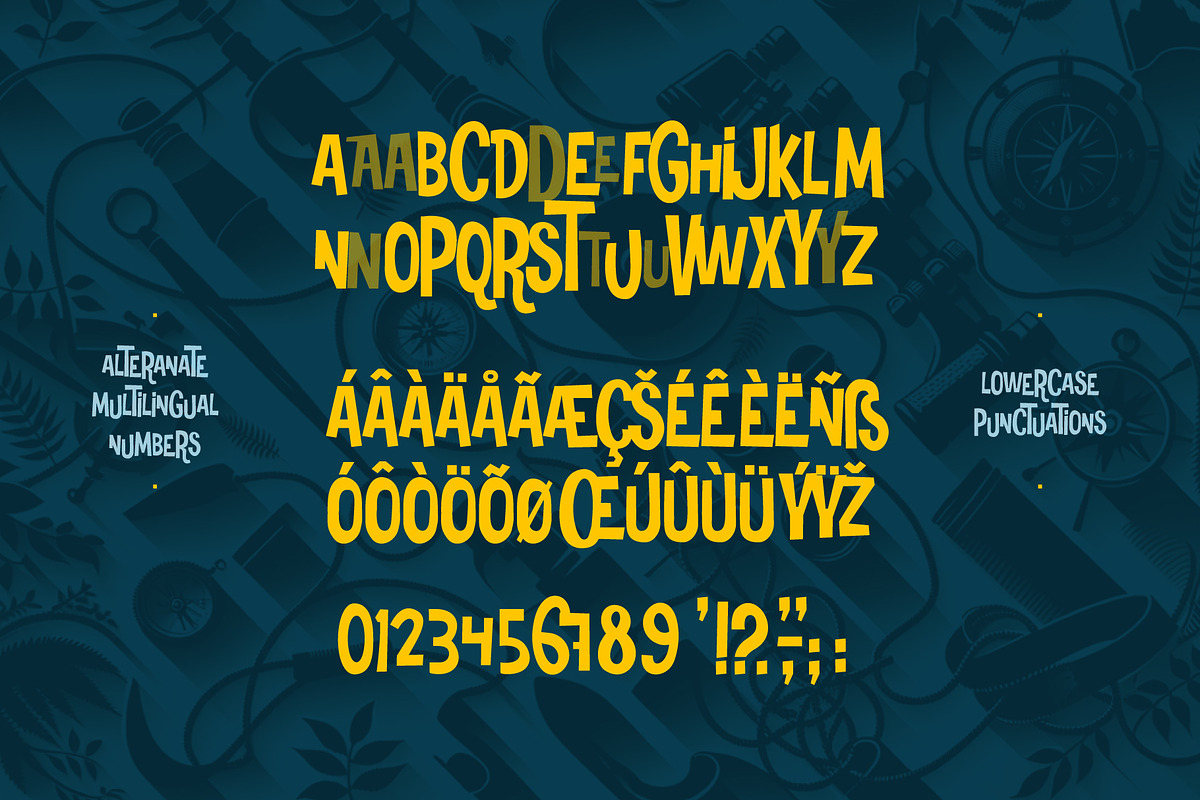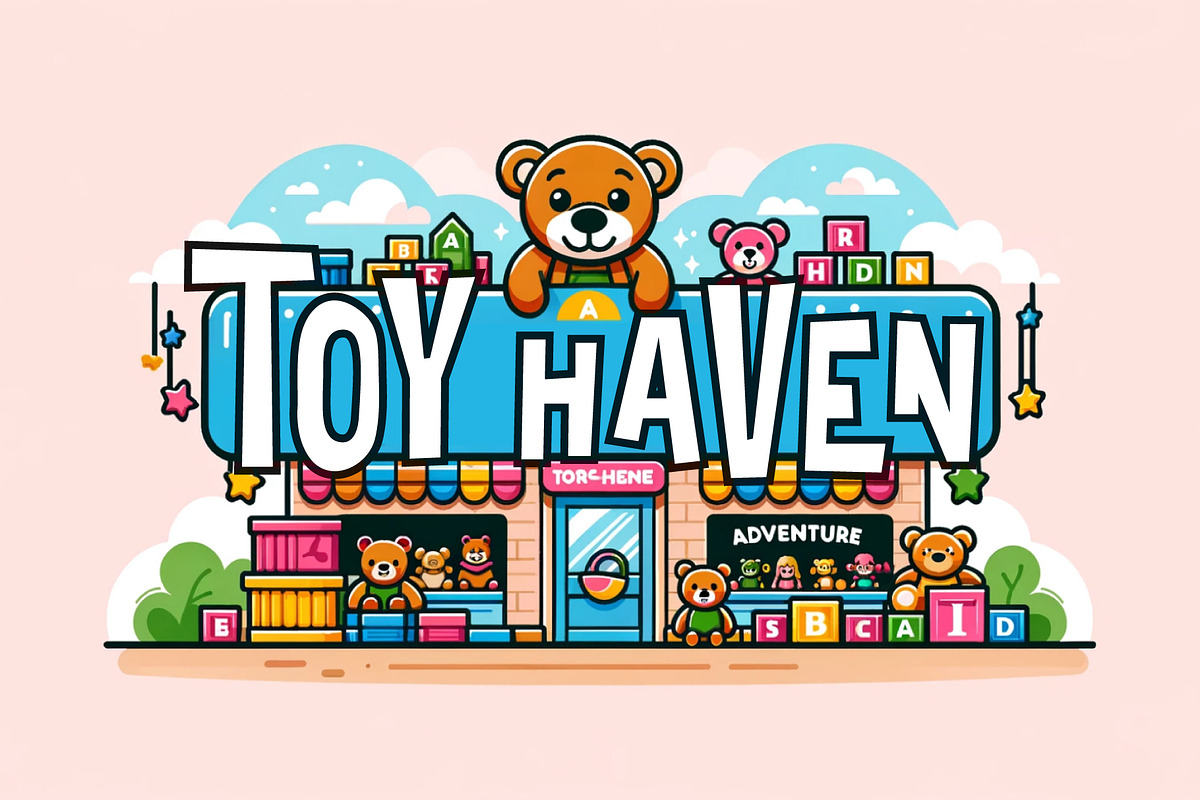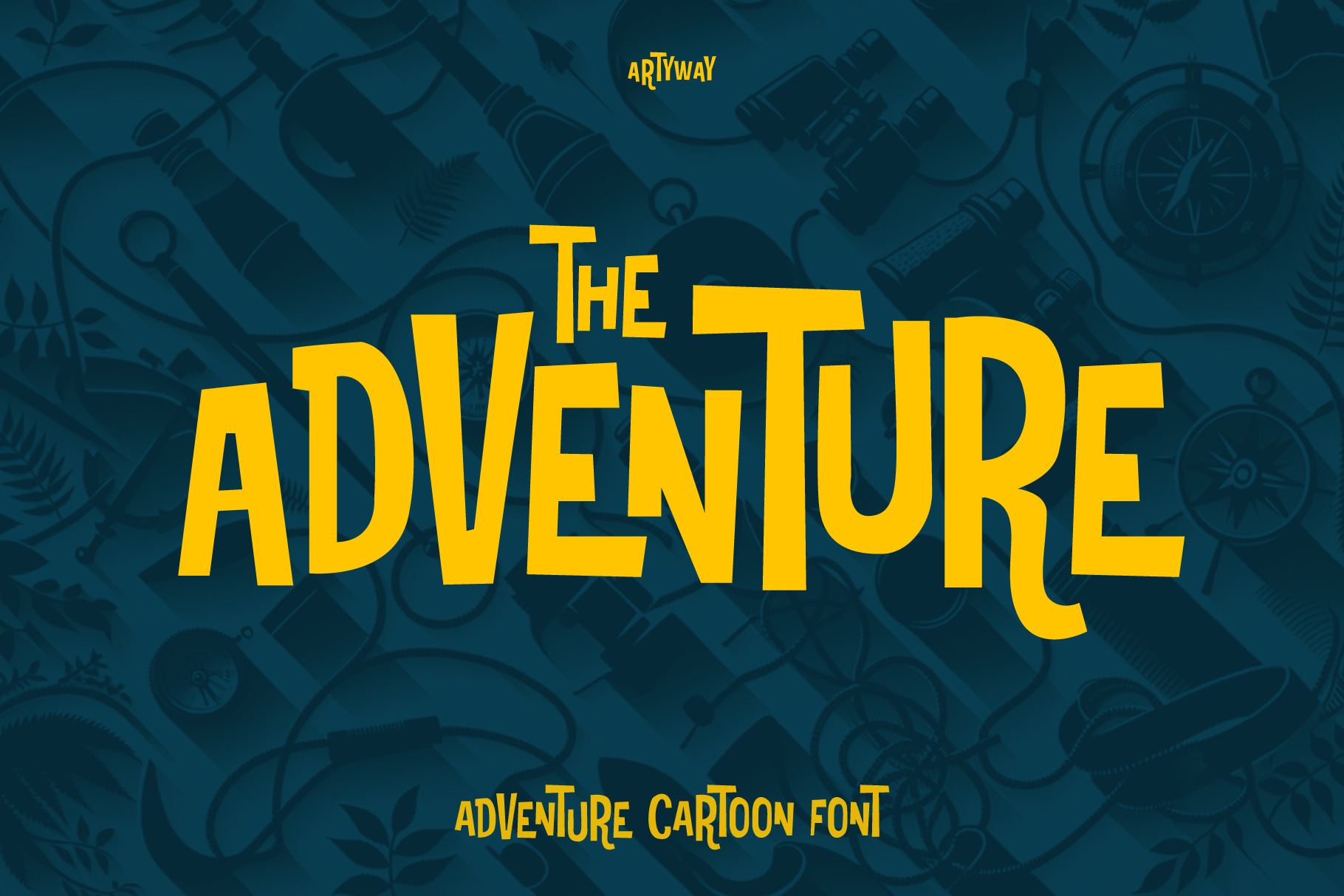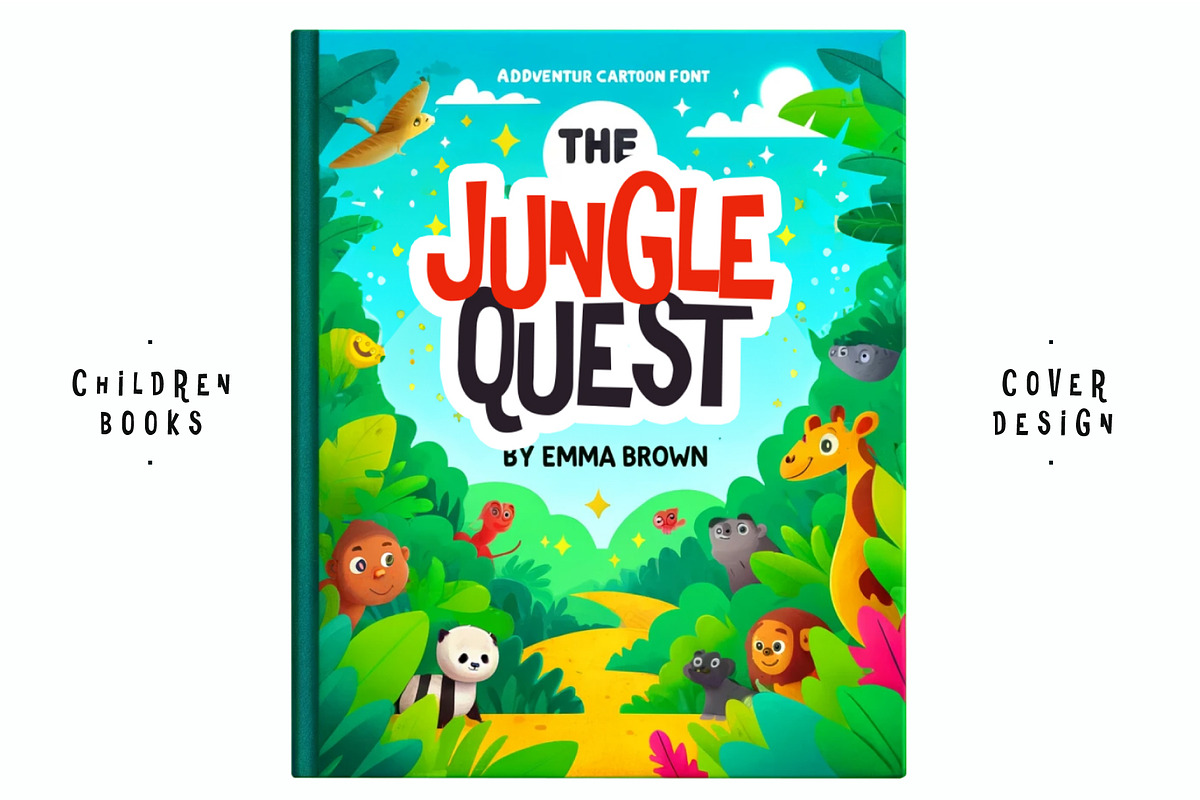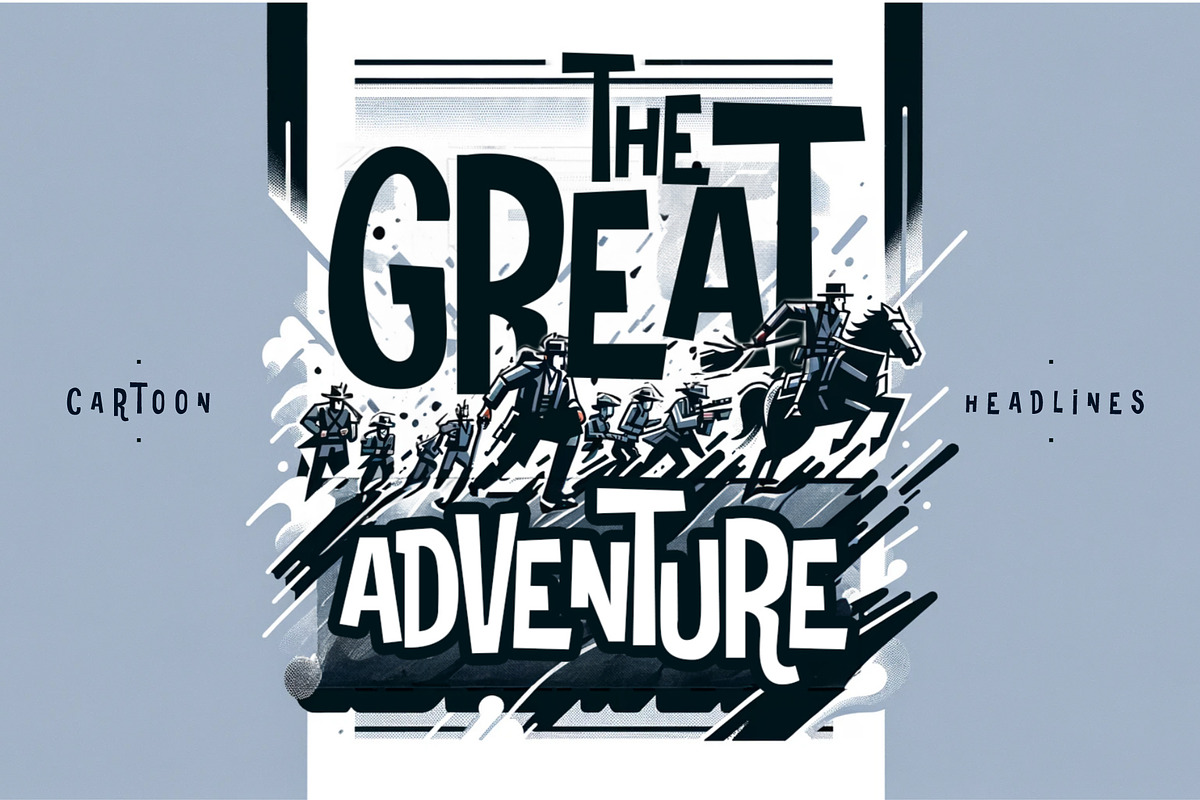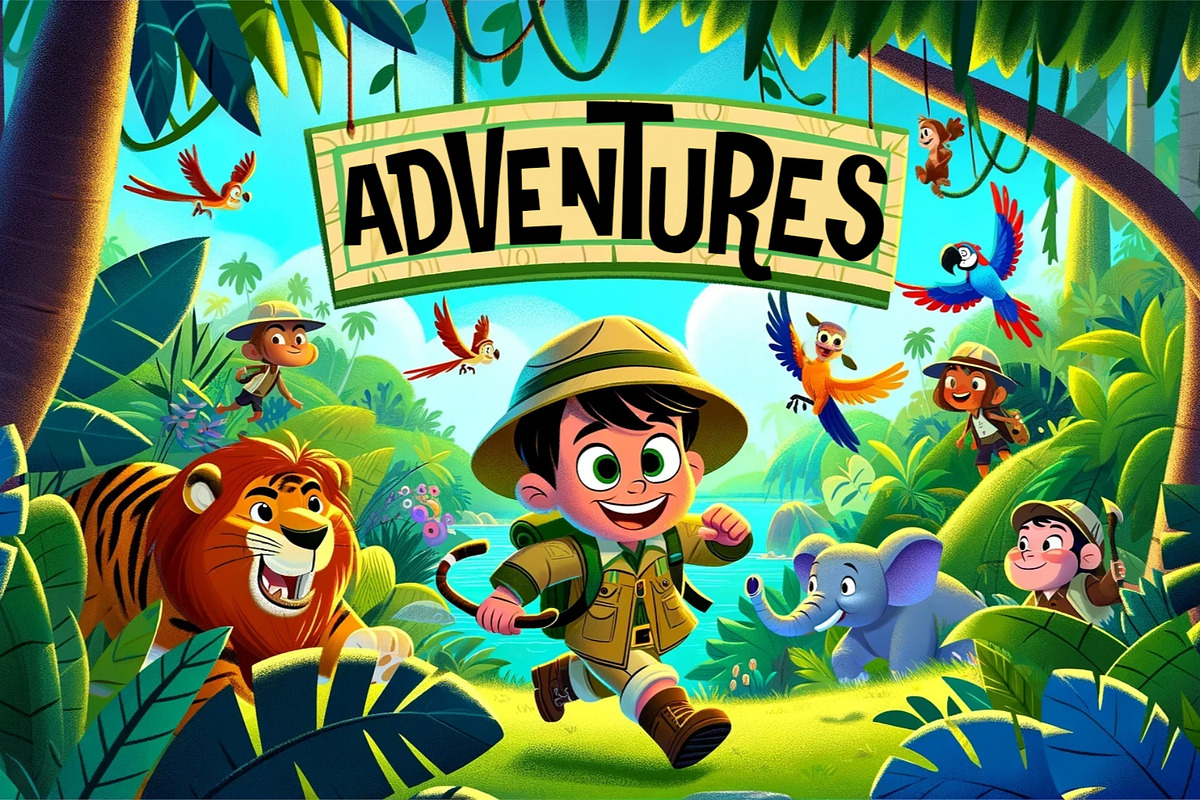
Adventure Cartoon Font
Adventure Cartoon Font – Playful Energy for Bold Designs
Inject fun and excitement into your projects with the Adventure Cartoon Font, a vibrant and playful typeface perfect for entertaining and engaging designs. Its bold, dynamic characters are brimming with personality, making it a standout choice for projects that aim to delight and captivate.
- Children’s content, storybooks, and games
- Playful logos and brand identities
- Posters, banners, and event graphics
- Creative social media posts and merchandise
- Dynamic, fun-filled designs with a charming twist
- Uppercase and lowercase letters
- Numbers and essential punctuation
- Multilingual support for global projects
- Unique, handcrafted characters full of personality
Bring your designs to life with the Adventure Cartoon Font. Perfect for adding bold, playful energy and creativity to any project.